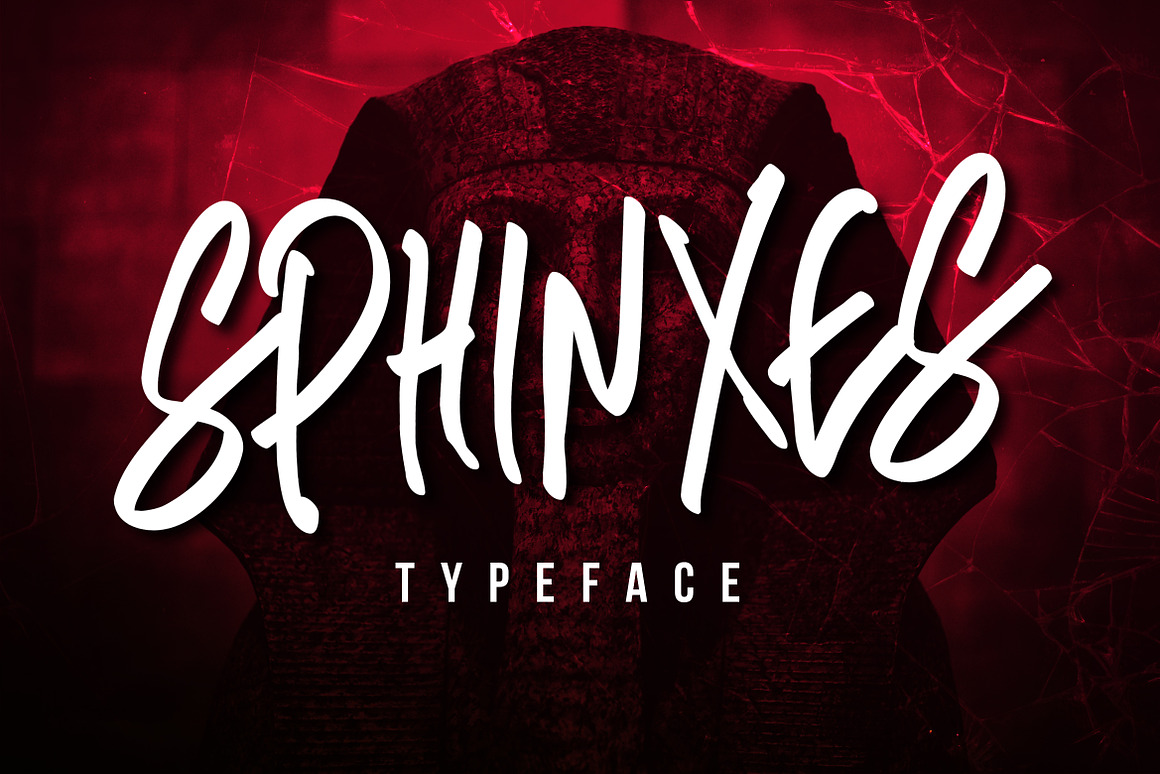
Sphinxes Typeface
Sphinxes Typeface is perfect for ancient history museums, archaeological publications, mystical branding, Egyptian-themed restaurants, historical documentaries, cultural heritage materials, antiquarian bookshops, mysterious entertainment venues, esoteric product packaging, ancient civilization studies, riddle-based games, and enigmatic luxury brands.
What makes Sphinxes Typeface exciting is its ancient mystique that captures the profound wisdom and eternal mystery of antiquity through enigmatic letterforms that echo the grandeur of lost civilizations and timeless secrets. This captivating typeface embodies the essence of ancient knowledge and mysterious power, combining archaeological authenticity with contemporary functionality that resonates with audiences fascinated by history, mystery, and the enduring allure of ancient wisdom. The font's enigmatic character and hieroglyphic-inspired details create immediate intrigue while maintaining the clarity essential for modern scholarly and commercial applications. Its mysterious personality makes it perfect for brands that want to communicate depth, wisdom, and the transformative power of ancient knowledge and historical discovery.
The Sphinxes Typeface family includes regular, medium, and bold weights, featuring ancient alternates, mystical ligatures, and archaeological design elements. The character set incorporates hieroglyphic symbols, ancient numerals, and mysterious punctuation marks that enhance the font's enigmatic character and provide designers with comprehensive historical typography solutions for scholarly and mystical brand expressions.
Whether you're developing historical brand identities, creating archaeological marketing materials, or designing mystical communications, Sphinxes Typeface Free Download provides the ancient wisdom your enigmatic projects require. This premium typeface excels in applications where mystery and intellectual depth are crucial for brand positioning and audience engagement in educational and cultural markets. The font's ancient qualities work magnificently across museum displays, historical publications, and digital heritage platforms, making it an essential tool for designers serving educational and cultural institutions. Museums and cultural organizations choose this font for its ability to communicate ancient wisdom while maintaining scholarly credibility and contemporary accessibility. The comprehensive character support includes historical symbols and archaeological glyphs, expanding its versatility for global cultural applications and multilingual scholarly communications. Professional designers appreciate its perfect balance of historical authenticity and modern functionality, ensuring projects remain both intellectually compelling and practically effective for diverse academic audiences. When you incorporate this exceptional typeface into your historical communications, you're selecting a typography solution that celebrates ancient wisdom and cultural heritage, ensuring your brand connects with history enthusiasts while maintaining the scholarly credibility essential for success in educational markets and cultural institutions that preserve human knowledge, explore ancient mysteries, and inspire curiosity about our shared civilizational heritage and the enduring questions that have captivated humanity throughout the ages.